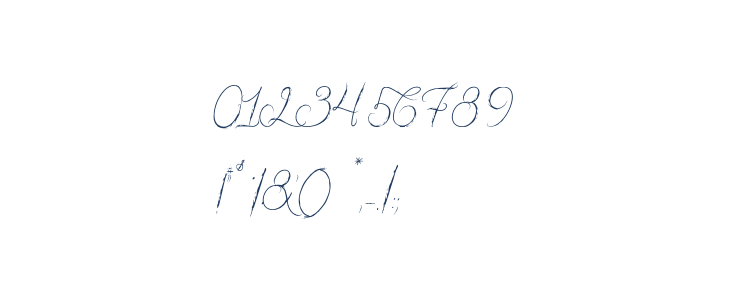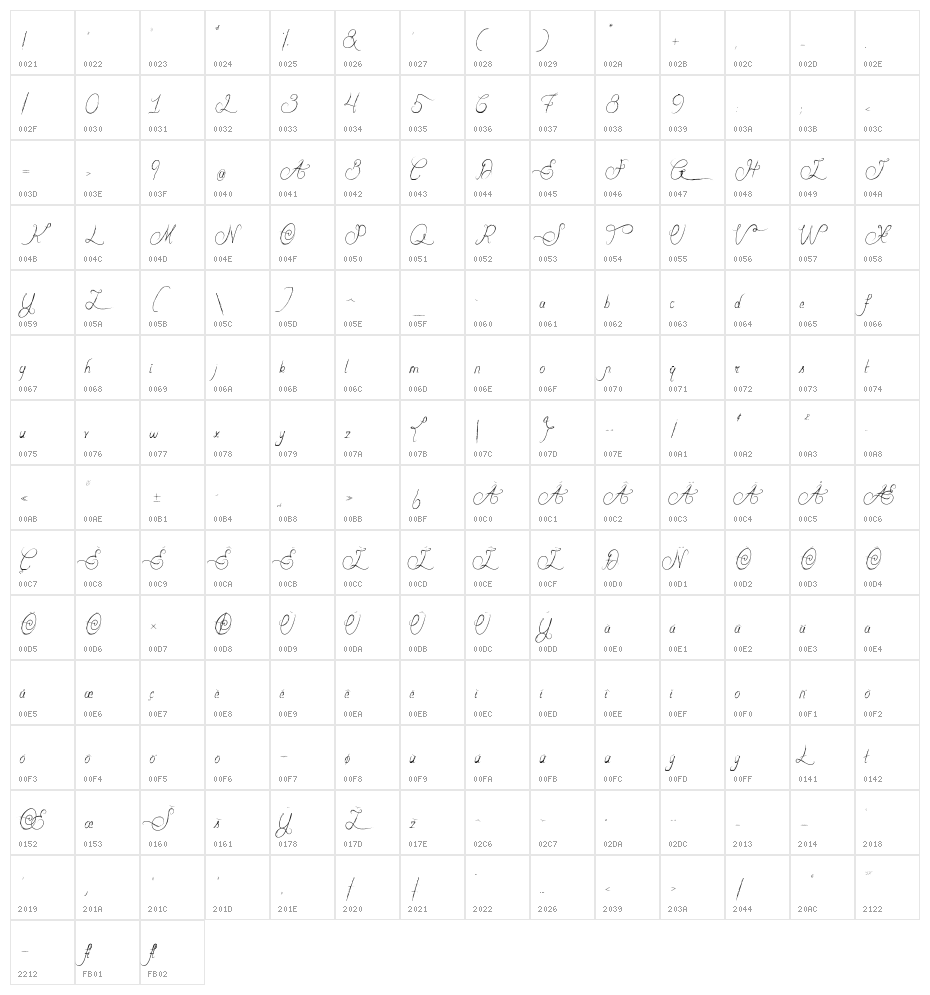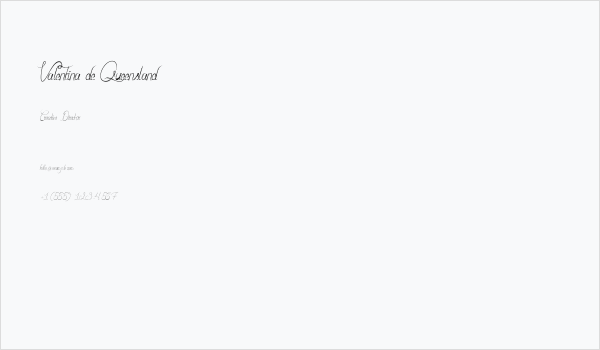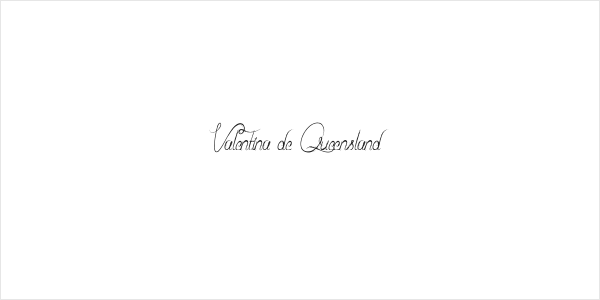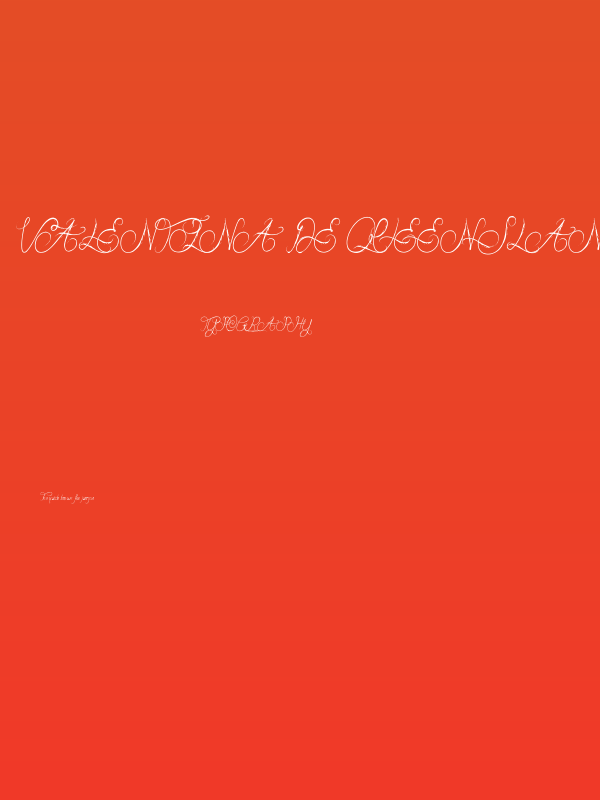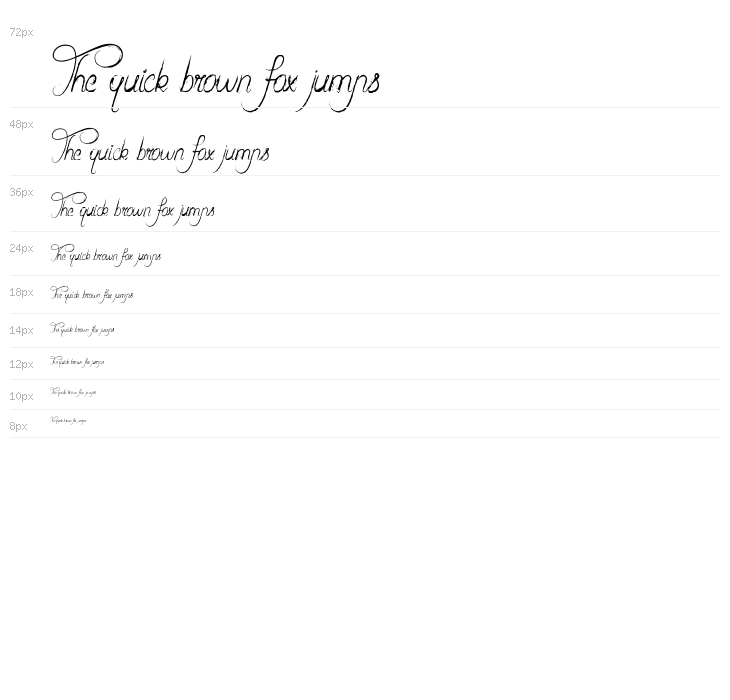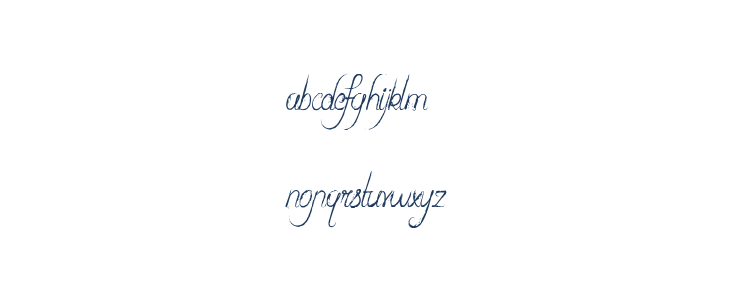
Valentina de Queensland Font
Valentina de Queensland Description
This elegant script font features intricate, flowing lines that create a sense of sophistication and grace. The uppercase letters are adorned with delicate swirls and loops, adding a decorative flair that is both classic and timeless. The lowercase letters maintain a consistent style, with smooth curves and a slight slant, enhancing the font's fluidity. Numbers and special characters are designed with the same attention to detail, ensuring a cohesive look across all elements. The overall appearance is reminiscent of traditional calligraphy, making it suitable for formal invitations, branding, and artistic projects.
| Proposed Projects | Ideal for wedding invitations, luxury branding, artistic projects, and formal event programs. |